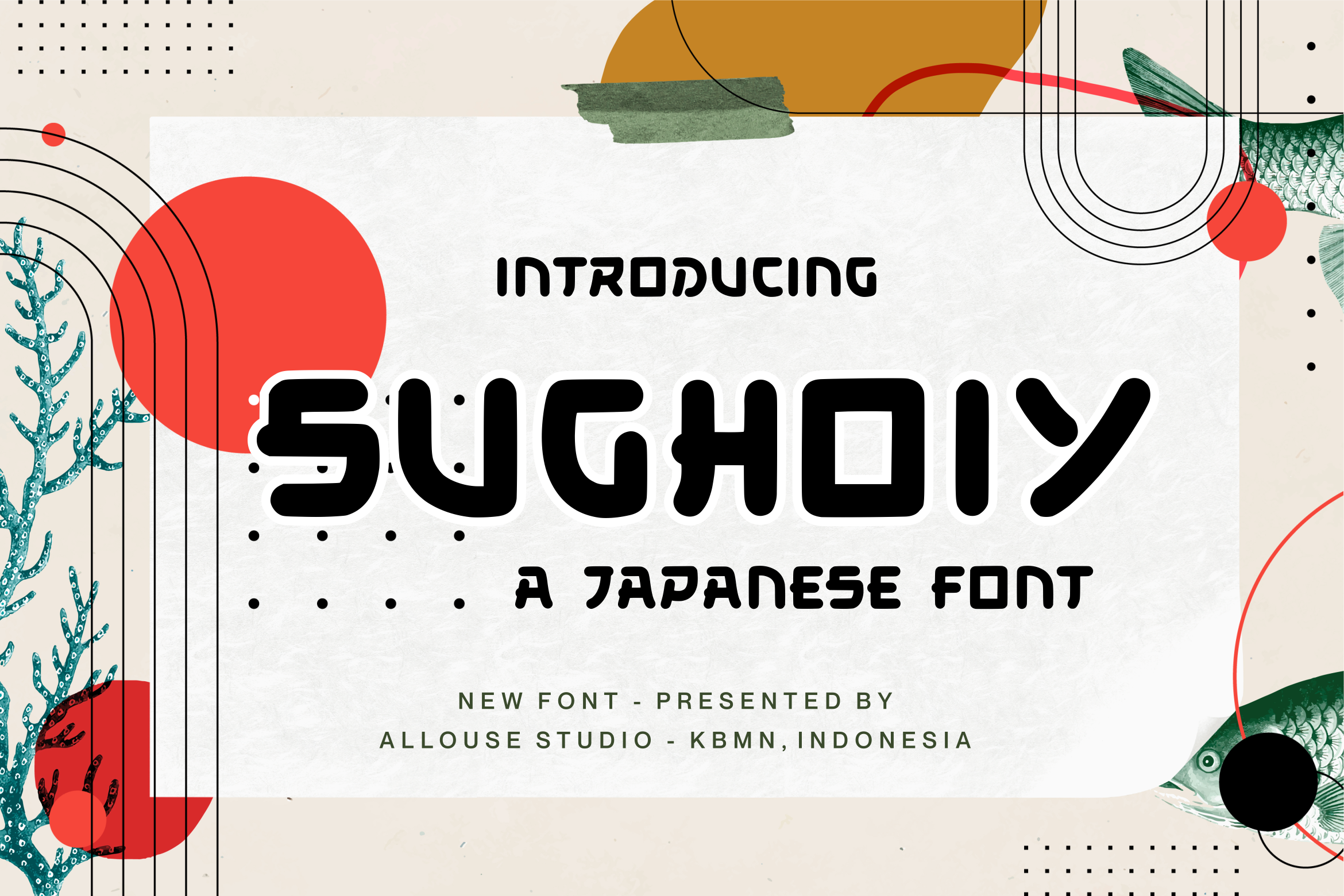
Proudly Presenting, Sughoiy A Japanese Bold Font.
Sughoiy is perfect for any titles, logo, product packaging, branding project, megazine, social media, wedding, or just used to express words above the background.
Sughoiy also come with Multi-Lingual Support.